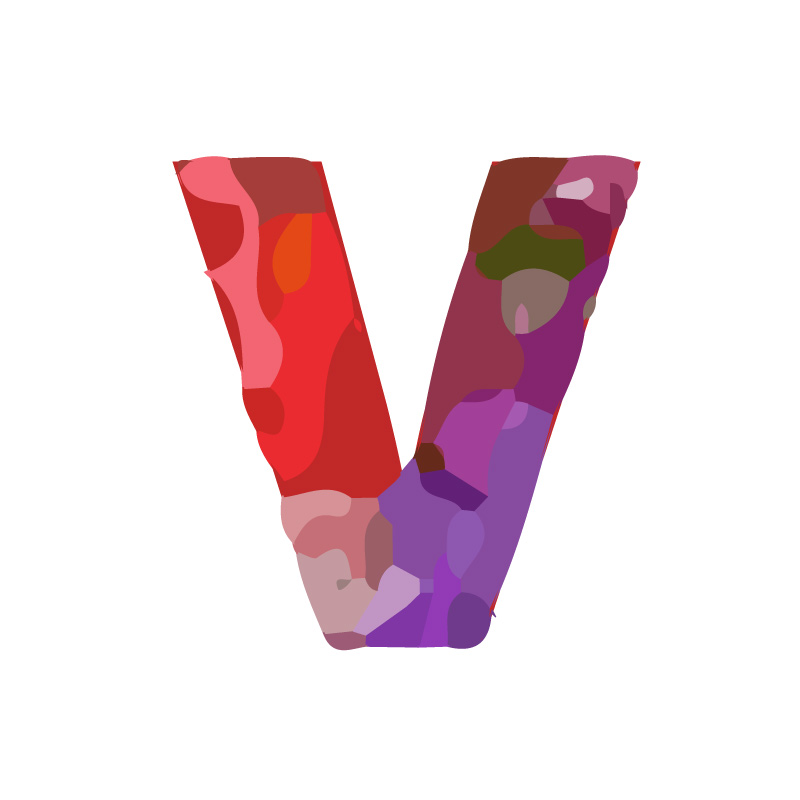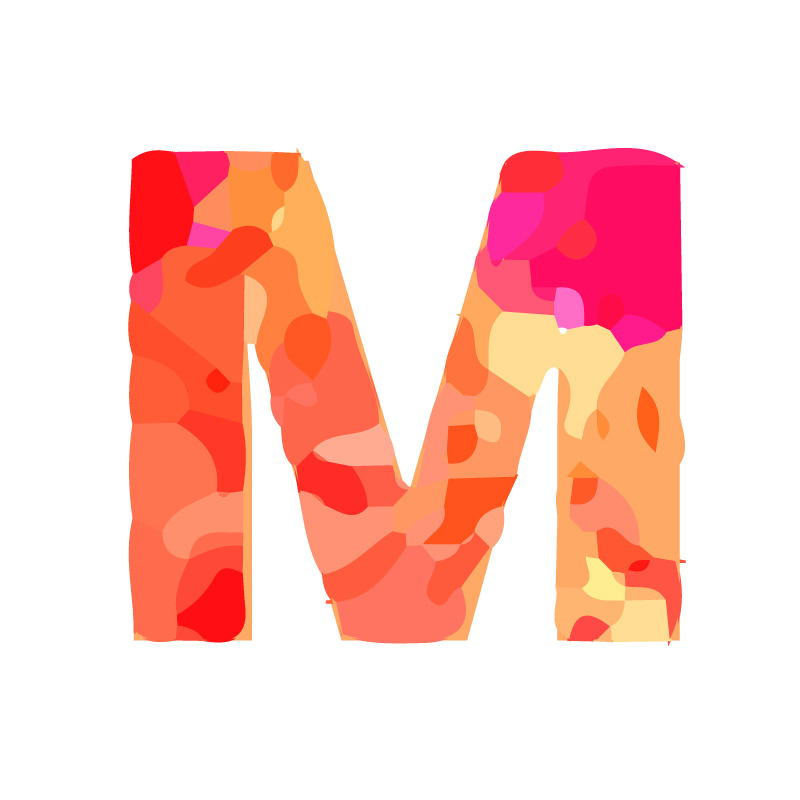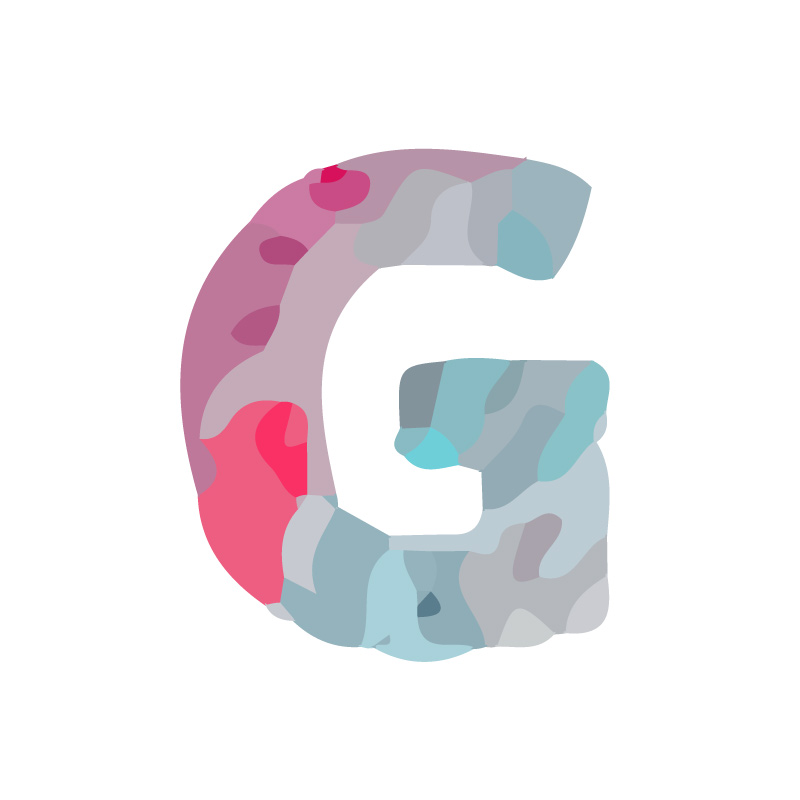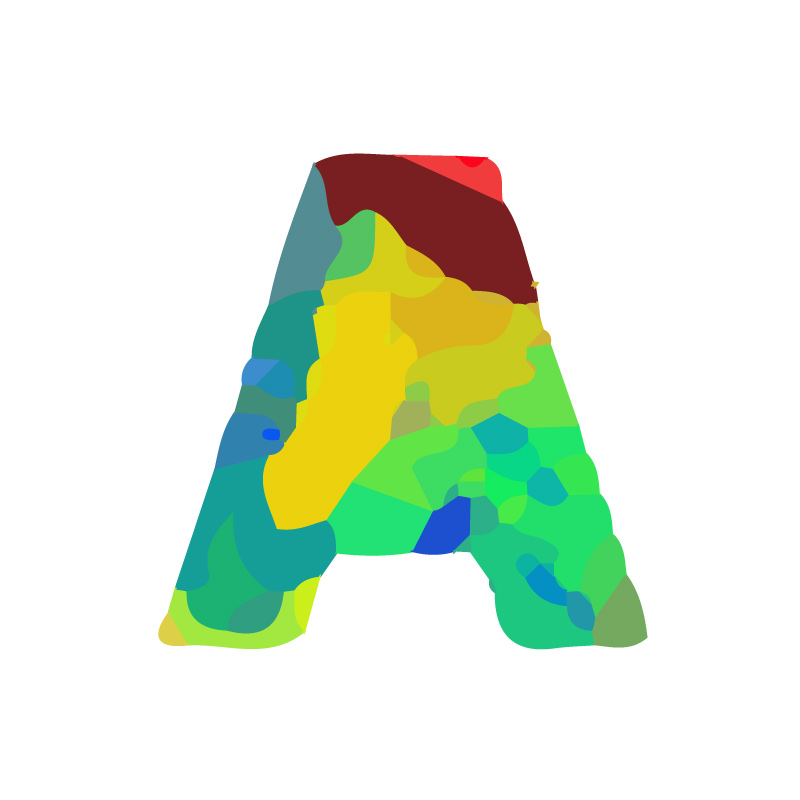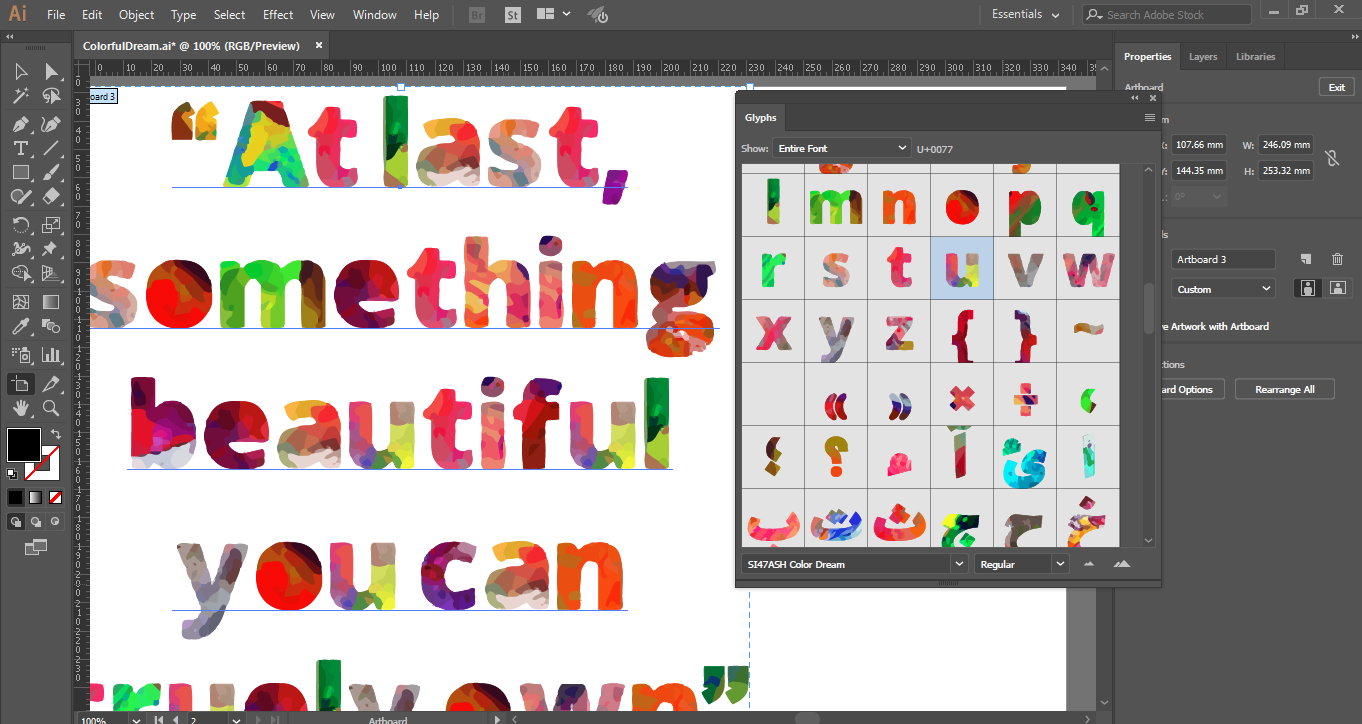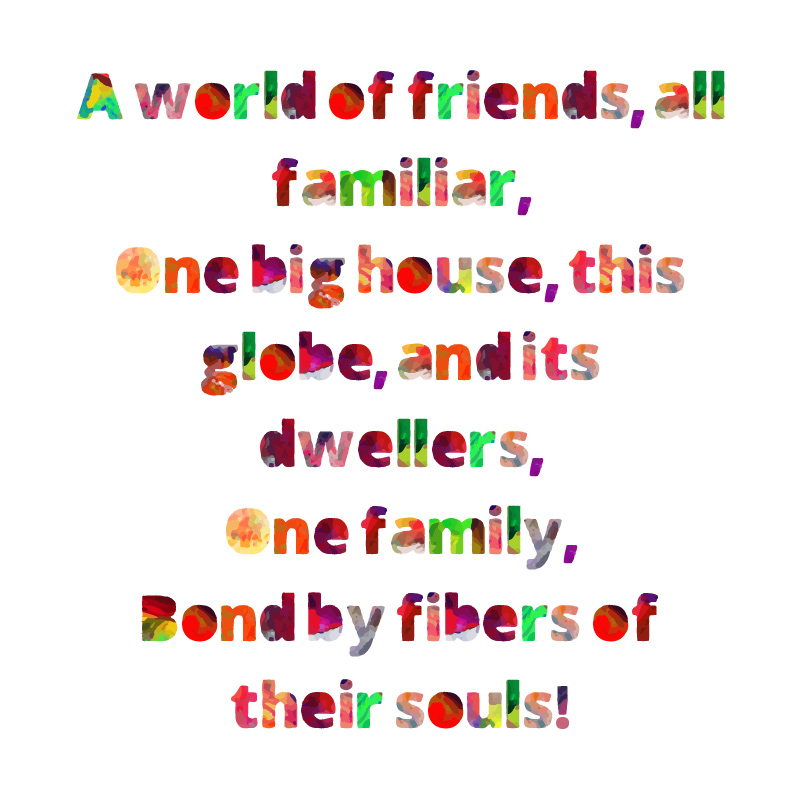
Introducing Colorful Dream (Color Font) – A Vibrant Typographic Experience
Are you ready to add a pop of color to your designs and make your typography stand out? Look no further than Colorful Dream, a stunning color font that will transport you to a world of vibrant hues and creative possibilities. In this article, we’ll dive into the world of Colorful Dream, exploring its unique features, compatibility, and how to make the most of this incredible font.
What is Colorful Dream?
Colorful Dream is a color font, also known as a chromatic font, that boasts an impressive array of colors. Every single glyph in this font has a distinct set of colors, creating a mesmerizing visual experience. When you take a closer look at the glyphs, you’ll notice intricate sets of paths and connections that make each one a miniature typographic painting.
Colorful Dream Font Example
Key Features of Colorful Dream
• Unique Color Scheme: Each glyph has its own set of colors, ensuring that your designs will be anything but ordinary.
• Intricate Design: The complex paths and connections in each glyph make Colorful Dream a true masterpiece of typographic design.
• PhotoShop: Use Colorful Dream to add a splash of color to your graphics and designs.
• Illustrator: Create stunning vector graphics and typography with this vibrant font.
• Silhouette: Bring your cutting projects to life with the colorful and intricate designs of Colorful Dream.
• Inkscape: Explore the world of vector graphics and typography with this versatile font.
Tips and Tricks for Using Colorful Dream
To get the most out of Colorful Dream, here are a few tips and tricks to keep in mind:
• Experiment with Colors: Don’t be afraid to try out different color combinations to find the perfect look for your project.
• Play with Typography: Use Colorful Dream to create stunning typographic designs, from bold statements to delicate details.
• Mix and Match: Combine Colorful Dream with other fonts and design elements to create unique and eye-catching compositions.
Colorful Dream is a game-changing color font that will add a new level of creativity and excitement to your designs. With its unique color scheme, intricate design, and compatibility with a range of software, this font is perfect for designers and crafters looking to make a statement. So why wait? Dive into the world of Colorful Dream and unlock a world of vibrant possibilities!